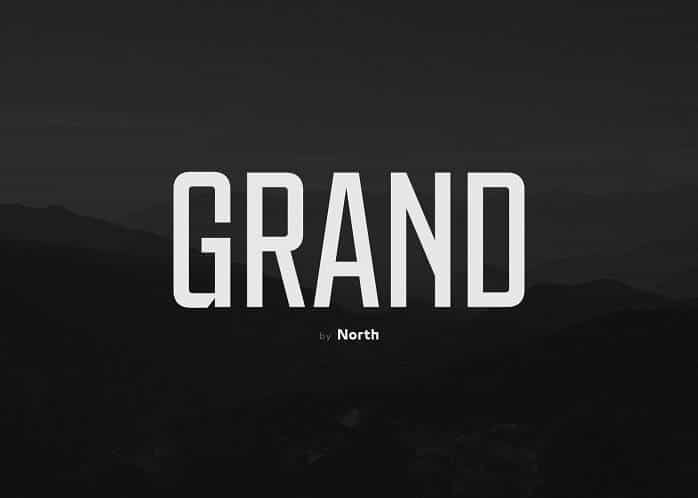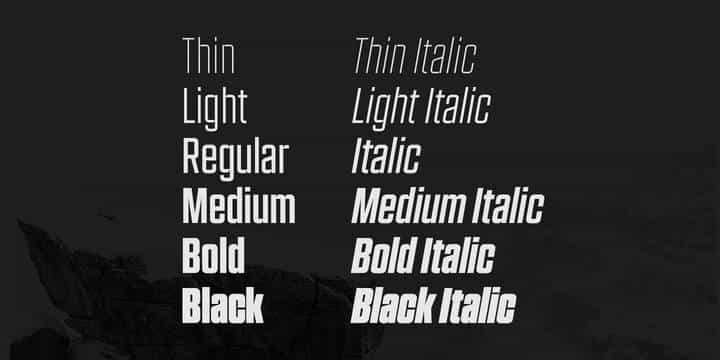
Hi designer! Meet Grand! The typeface was designed and owned by North Type designed with its design inspiration taken from old school sign painting techniques. Grand may be characterized as a compact sans serif display that stands without hesitation; its verticality and beefy curves and sharp connections between stems and bowls are what makes it unique.